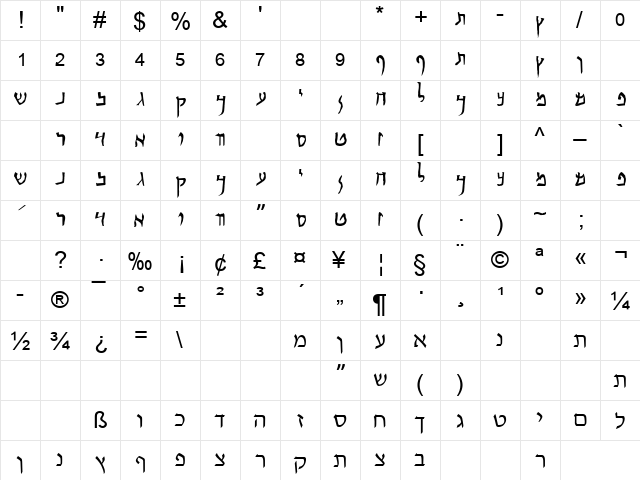
Qumran Caves Regular
Design Context for Qumran Caves Typeface
Qumran Caves offers clean, dependable letterforms without strong stylistic allegiance, making it a practical choice for designers who need flexibility.